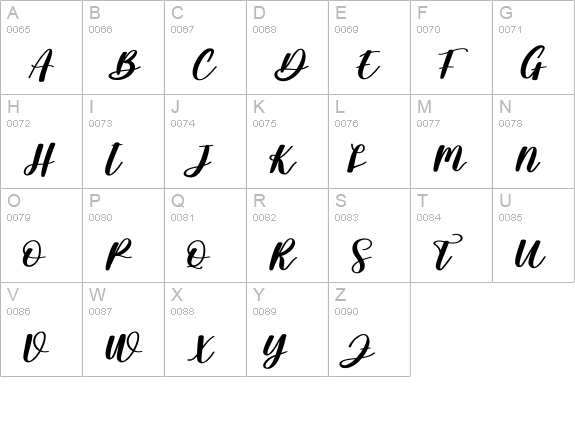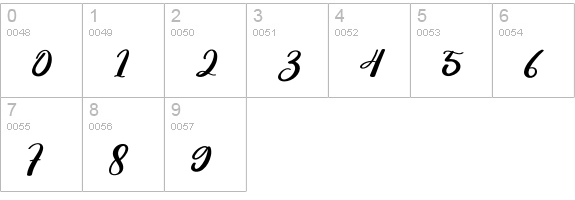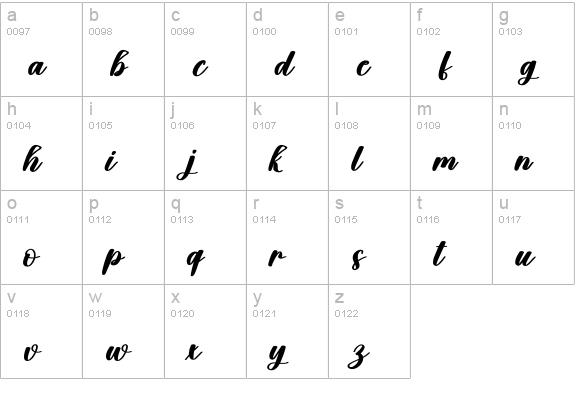
Candy Potato is a free for personal use font in the Script > Handwritten category, designed by scratchones. It has been downloaded 81 times and is available for Windows, Mac and Linux.
Introducing Candy Potato font, a delightful and charming typeface that will add a touch of sweetness to your designs. This playful font is perfect for creating eye-catching titles, playful logos, and fun branding materials. With its rounded edges and friendly curves, Candy Potato exudes a warm and inviting vibe that will appeal to a wide range of audiences.